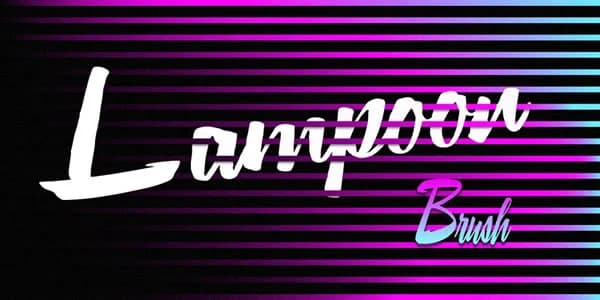
About Lampoon Brush Font
Lampoon Brush Font by Good Gravy Type is a gestural script typeface that marries energetic brushwork with legible, practical letterforms. The hand-rendered quality of each character brings genuine personality to designs while maintaining excellent readability whether displayed large on signage or rendered smaller on digital screens. This typeface captures the organic, tactile appeal of traditional brush calligraphy without sacrificing the versatility modern designers demand from their type libraries. The font comes in five weight variations ranging from 50 through 90, allowing you to calibrate stroke thickness precisely, from delicate, refined letterforms to bold, commanding headlines. This weight range makes Lampoon Brush equally suited to wedding invitation suites with elegant flourishes, artisan product packaging for boutique skincare and ceramics, Etsy shop branding that emphasizes handmade authenticity, and custom vinyl signage for retail environments. Both independent makers and established studios leverage the font for personalized stationery, custom apparel labels, and designs requiring authentic hand-drawn character. The clean scaling across point sizes and consistent visual rhythm through all weight variations mean Lampoon Brush performs reliably across multiple mediums, from high-resolution print applications to screen-based layouts to physical product applications. Explore what this hand-crafted aesthetic can bring to your next design project by getting Lampoon Brush Font on Creative Fabrica.
- Elegant, Flowing, Lampoon Brush
Lampoon Brush Font is a script font that shines as a display or heading face. Pair it with a clean sans-serif or serif font for body text β the contrast creates a clear hierarchy while the two styles stay balanced and easy to read.
Lampoon Brush Font